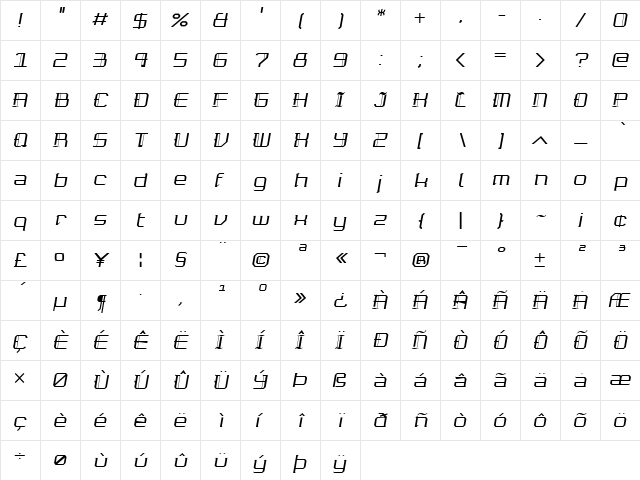
Nightjar Oblique Regular
| Foundry | Rob Kandefer |
| Designer | Rob Kandefer |
Design Context for Nightjar Oblique Typeface
Nightjar Oblique is a composed and adaptable typeface that performs quietly and consistently across a wide range of design contexts. The dynamic lean of this cut emphasises speed and emphasis in any layout.